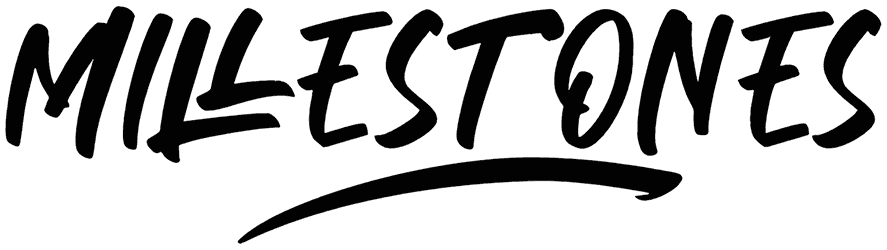
Millestones Font
Brush font gets distinguished by its organic elements and hand-drawn style, which gives it a unique personality. Millestones is a perfect example that, with its dreamy design, comes across as assembling joyful typography for your artwork no matter it’s a gift card or postcard, wrapping paper, or even advertisements.